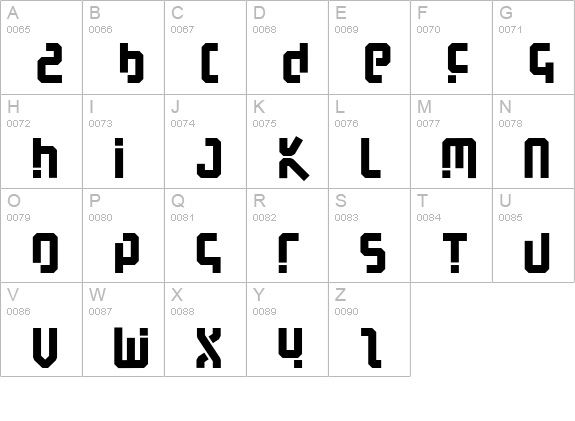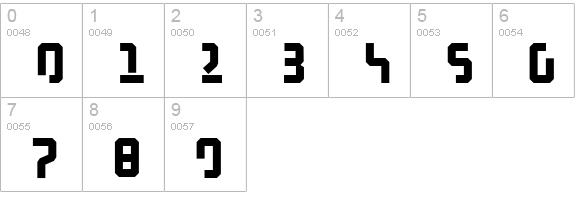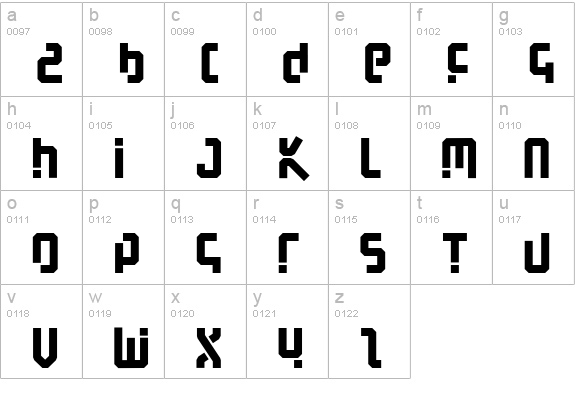
BauHouse200 Font Details
Introducing BauHouse200 font, a modern and sleek typeface perfect for adding a touch of sophistication to your design projects. This versatile font features clean lines and geometric shapes, making it ideal for a wide range of applications including logos, branding, posters, and more. BauHouse200 is available in a variety of weights and styles, allowing you to easily customize the look and feel of your designs. Whether you're looking to create a bold statement or a subtle accent, this font has you covered. Best of all, BauHouse200 is completely free to download at FontsMarket.com. So you can add this stylish font to your collection without breaking the bank. Don't miss out on the opportunity to enhance your design work with the sleek and modern BauHouse200 font. Download it today and start creating stunning designs that stand out from the crowd.